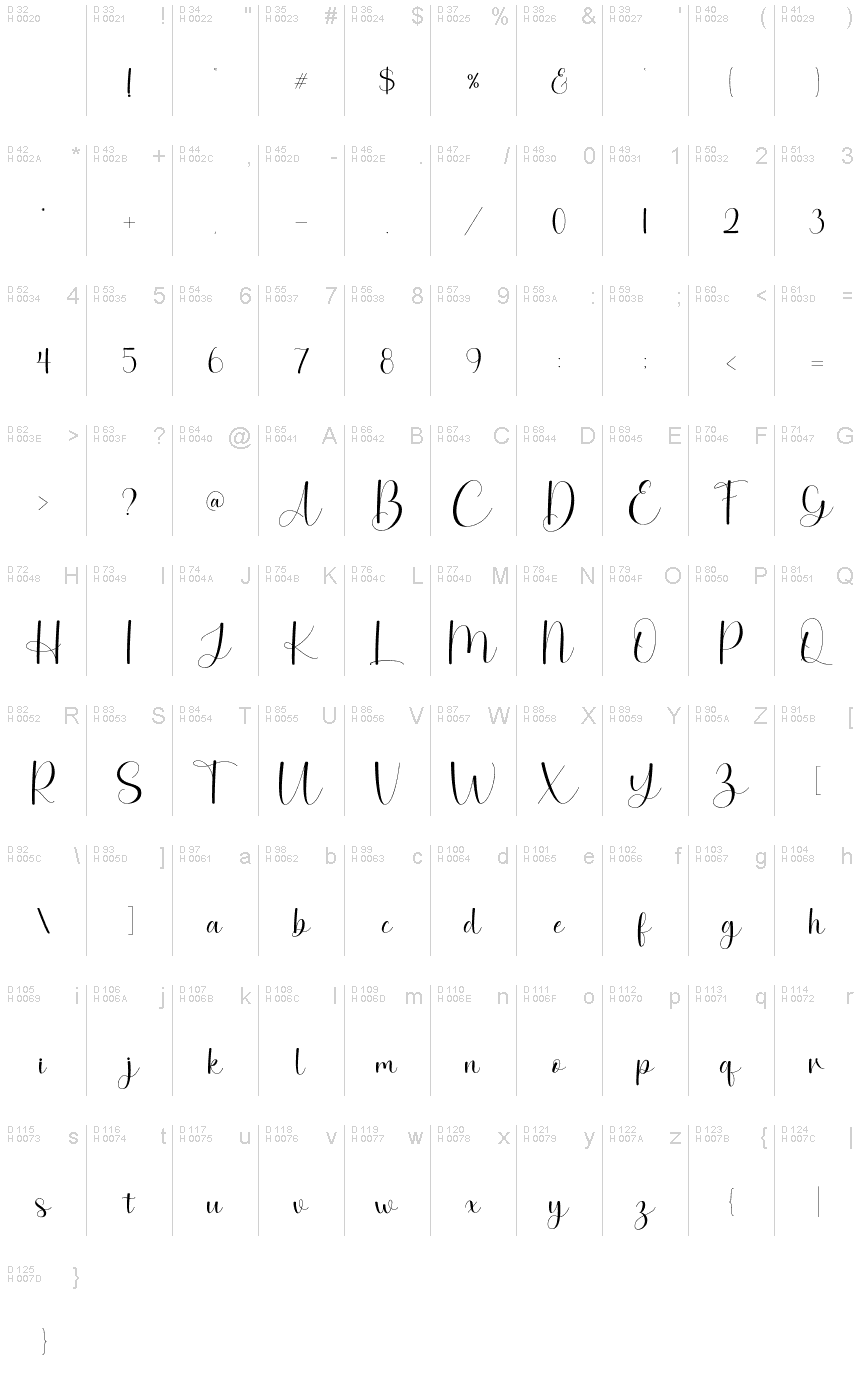
Angellica
Angellica is a light calligraphy font by JD Studio, is perfect for creating stunning invitations, stationery, logos and more. This beautiful font can be used to add elegance and personality to any project.